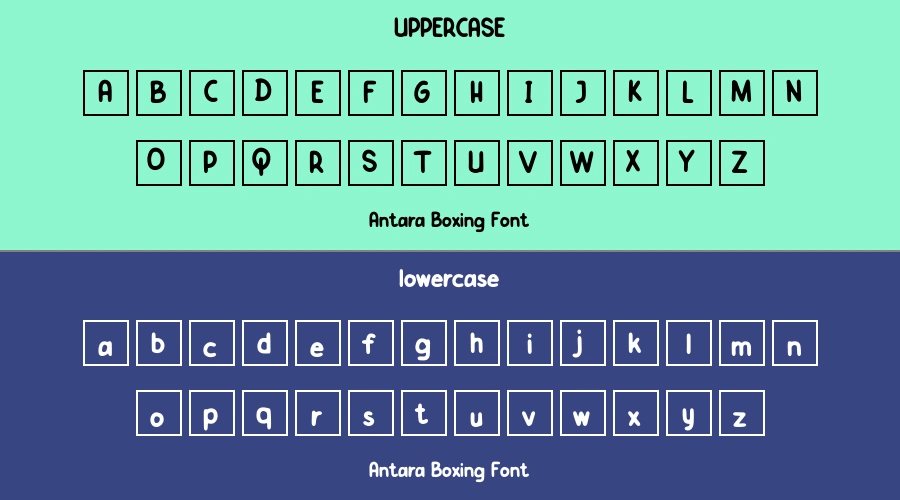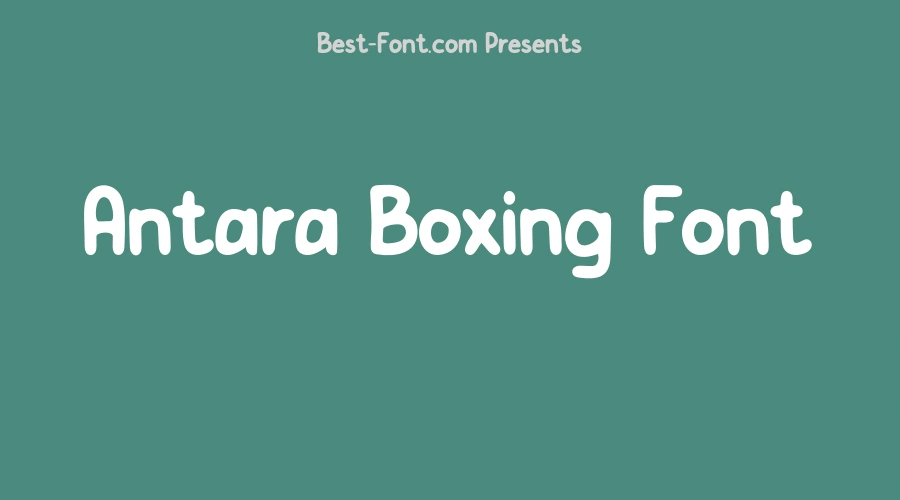
About Antara Boxing Font
Antara Boxing Font embodies typographic excellence through its masterful combination of flowing forms and professional finish. Created for social media content, this typeface delivers exceptional distinctiveness and design heritage across all applications. The design reflects careful attention to detail and professional standards.
Advanced capabilities include distinctive creative flair and versatile display figures, giving designers creative control. When used in product names, Antara Boxing Font exhibits remarkable purchase influence. The harmonious balance between ear formation and cultural context sets this typeface apart.